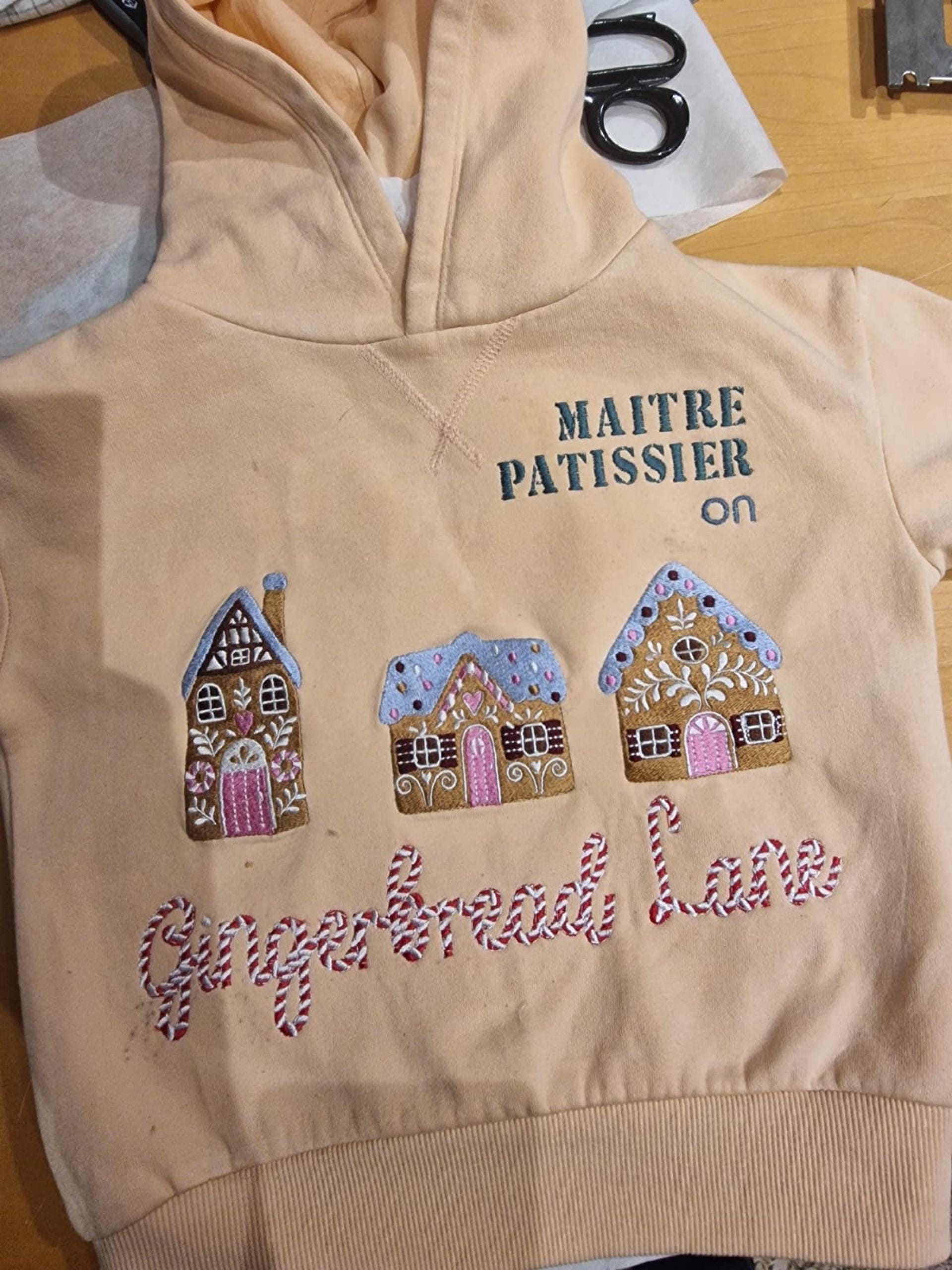
Candy Lips FONT candy cane stitch 2 colors alphabet Christmas stocking monogram letters machine embroidery designs
Entire alphabet has uppercase and lowercase letters Aa-Zz, numbers 0-9, and punctuation.